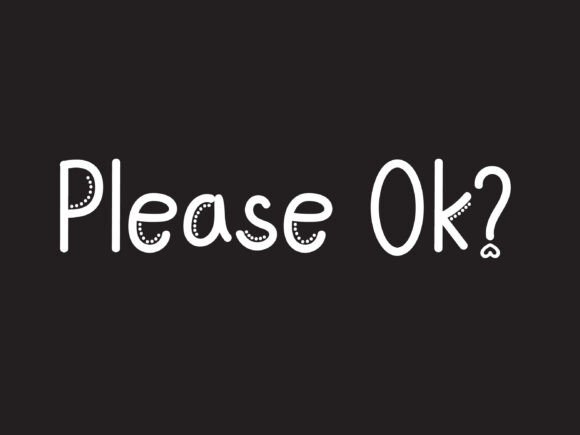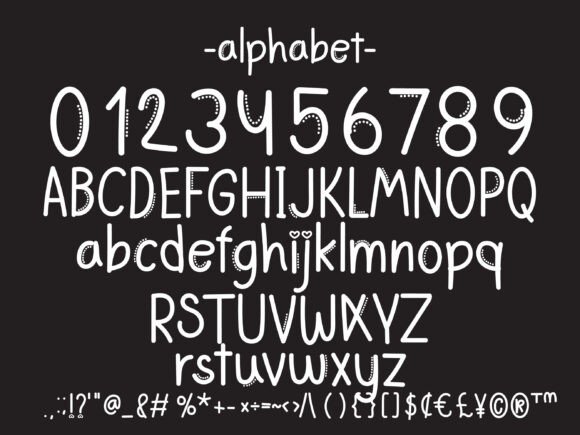
Introducing Believe Font: The Trendy and Cute Handwritten Font for Your Fun Projects
Are you a designer or crafter looking for a font that adds a touch of whimsy and charm to your projects? Look no further than Believe Font! This trendy and cute handwritten font is perfect for adding a personal touch to your designs, making them stand out from the crowd. In this article, we’ll dive into the features and benefits of Believe Font, and explore how you can use it to take your designs to the next level.
What is Believe Font?
Believe Font is a beautiful, handwritten font that exudes a sense of playfulness and fun. Its unique and quirky characters make it perfect for a wide range of projects, from invitations and greeting cards to social media graphics and blog posts. Whether you’re a professional designer or a DIY crafter, Believe Font is sure to inspire your creativity and add a touch of personality to your work.
Key Features of Believe Font
- Handwritten style: Believe Font has a lovely, handwritten feel that’s perfect for adding a personal touch to your designs.
- Trendy and cute: This font is on-trend and adorable, making it perfect for designers and crafters who want to create fun and engaging projects.
- Whimsical charm: Believe Font has a playful, whimsical quality that will add a touch of magic to your designs.
- Easy to read: Despite its playful style, Believe Font is easy to read, making it perfect for use in a wide range of projects.
- Versatile: Believe Font can be used for a wide range of projects, from digital designs to print materials.
Benefits of Using Believe Font
So why should you choose Believe Font for your next project? Here are just a few benefits of using this amazing font:
- Adds personality to your designs: Believe Font is a great way to add a touch of personality to your designs, making them stand out from the crowd.
- Perfect for fun projects: If you’re working on a fun project, such as a party invitation or a social media graphic, Believe Font is a great choice.
- Great for DIY crafters: Believe Font is a great choice for DIY crafters who want to add a personal touch to their projects.
- Choose your project: Think about the type of project you want to create, and how you can use Believe Font to add a touch of personality.
- Experiment with different styles: Don’t be afraid to experiment with different styles and formatting options to get the most out of Believe Font.
- Have fun!: Most importantly, have fun with Believe Font! It’s a great way to add a touch of whimsy and charm to your designs.
In conclusion, Believe Font is a trendy and cute handwritten font that’s perfect for adding a touch of whimsy and charm to your designs. With its unique and quirky characters, easy-to-read style, and versatile nature, Believe Font is a great choice for designers and crafters alike. Whether you’re working on a fun project or just want to add a personal touch to your designs, Believe Font is sure to inspire your creativity and take your designs to the next level.